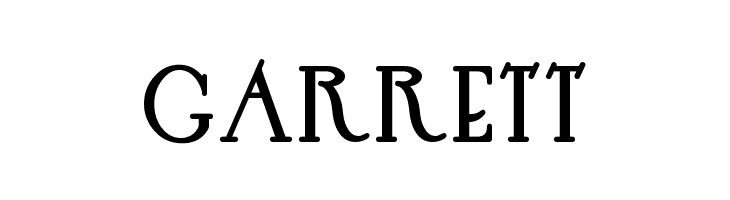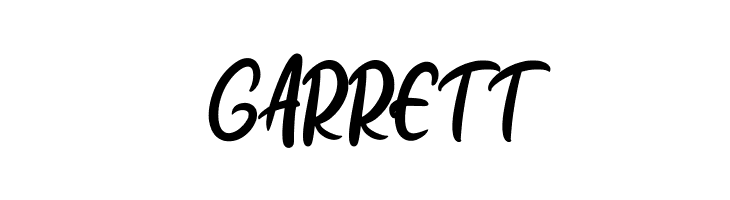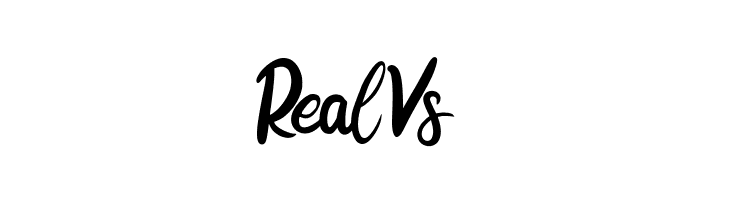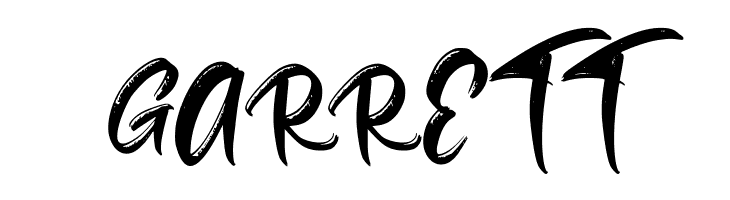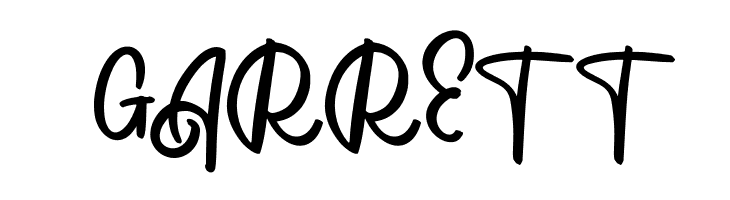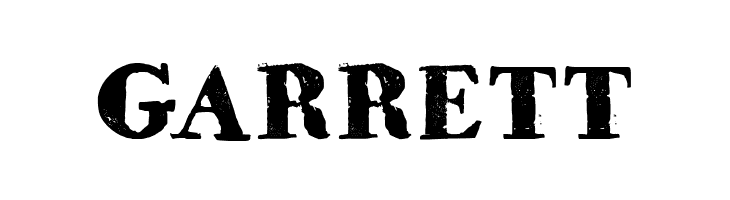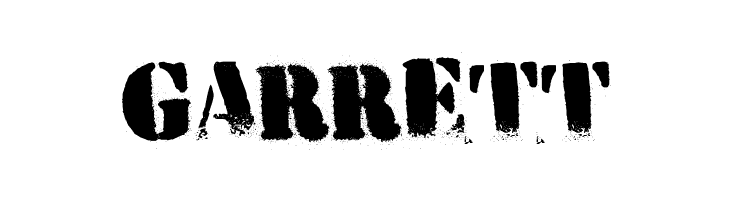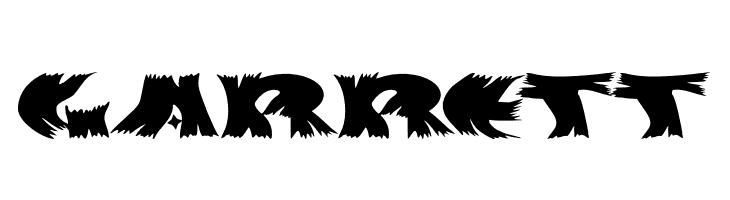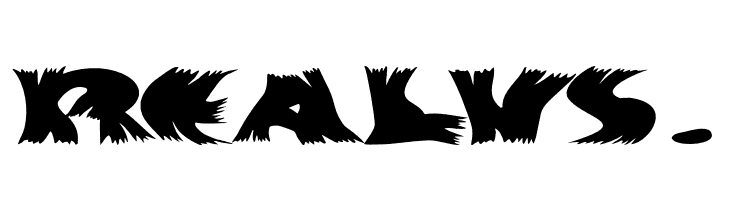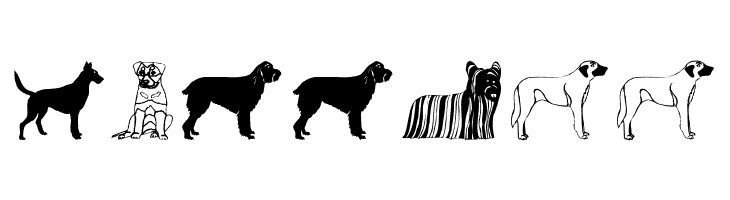
A whimsical, hand-drawn font with human-like features and playful design.
Abstract, human-like silhouettes form each character in a non-traditional, illustrative style.
Hand-drawn, illustrative font featuring human figures and scenes.
A whimsical, robot-themed decorative display font with high contrast and unique character illustrations.
Cartoonish, hand-drawn font made of expressive human head illustrations.
An anatomical dingbat font with detailed human body illustrations.
Hand-drawn font featuring expressive human portraits as characters.
Decorative font with illustrated human portraits in a comic style.
A whimsical and eclectic collection of bold, imaginative pictorial symbols.
Cartoon-style illustrative font with each glyph as a unique scene.
A display font made from human silhouette illustrations.
A bold, expressive handwritten font with a brush-like texture.
A modern, minimalist font with rounded edges and uniform stroke width.
A playful, cartoonish illustrative font made of humorous scenes.
A whimsical and playful illustrated font with humorous characters.
Cartoonish, bold-outlined animal and creature illustrations with a humorous style.
Whimsical, animal-themed decorative font with bold circular enclosures.
Dog-themed dingbat font with detailed breed illustrations.
A lively and modern script font with dynamic strokes and medium contrast.
A bold, decorative font with vintage flair and intricate detailing.
A bold, flowing script font with interconnected characters and a dynamic, elegant style.
A bold, jagged font with a stormy, dynamic appearance.
A whimsical, vintage-style font with elegant curves and subtle serifs.
A whimsical and playful font with elegant flourishes and clear readability.
A bold, playful script font with flowing, interconnected strokes.
A bold, distressed font with a vintage, textured appearance.
A bold, distressed stencil font with a rugged, industrial feel.
A bold, distressed font with a vintage, textured style.
A bold, impactful font with rounded edges and strong character presence.